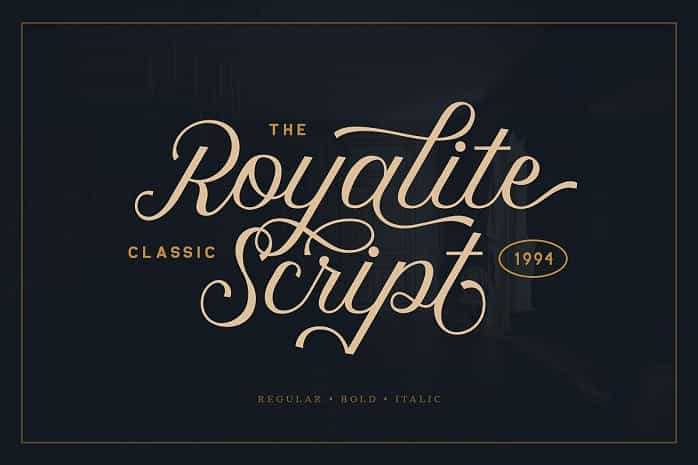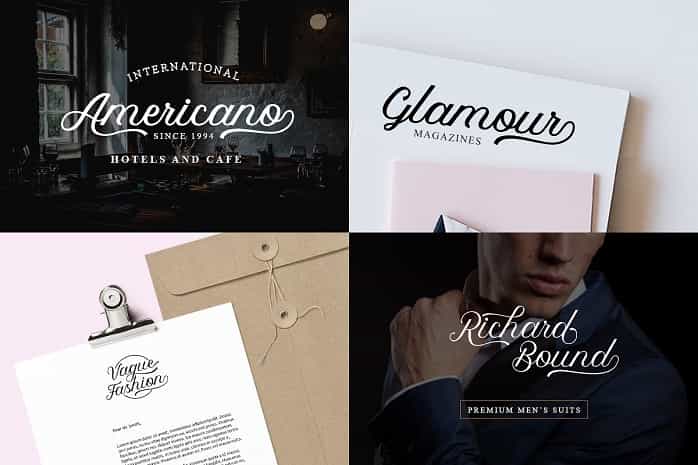
This is a modern script Royalite font. A Royalite is a traditional calligraphy pen. It includes stylistic alternatives, swashes, etc and those are ready for you to mix and match as you wish with your design. You can feel the warmth and appeal in it. Now it is the same as time to do something better from your old font. Just make a wonderful wedding invitation, quotes, logo, mood board and even more.